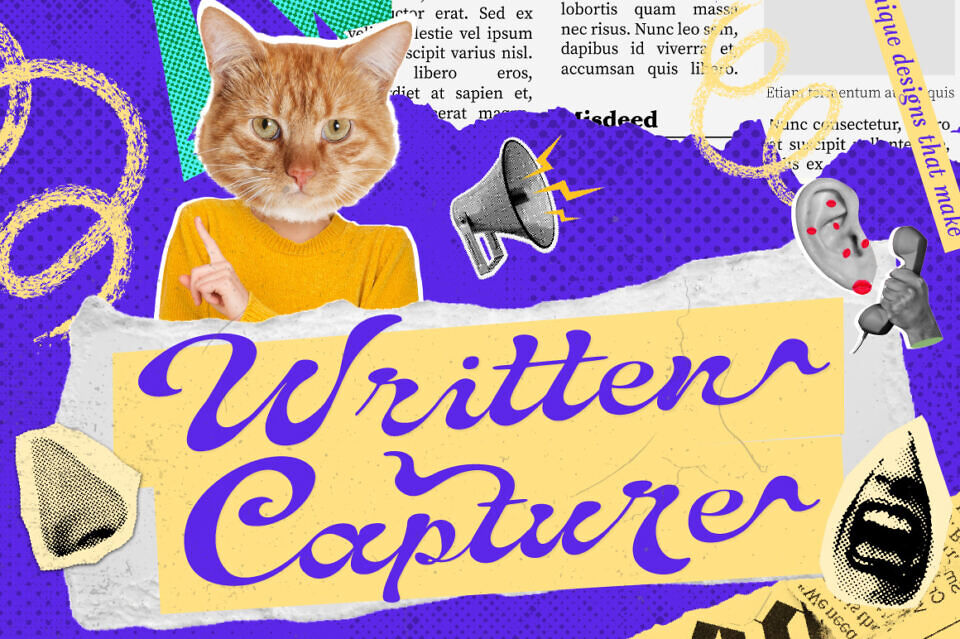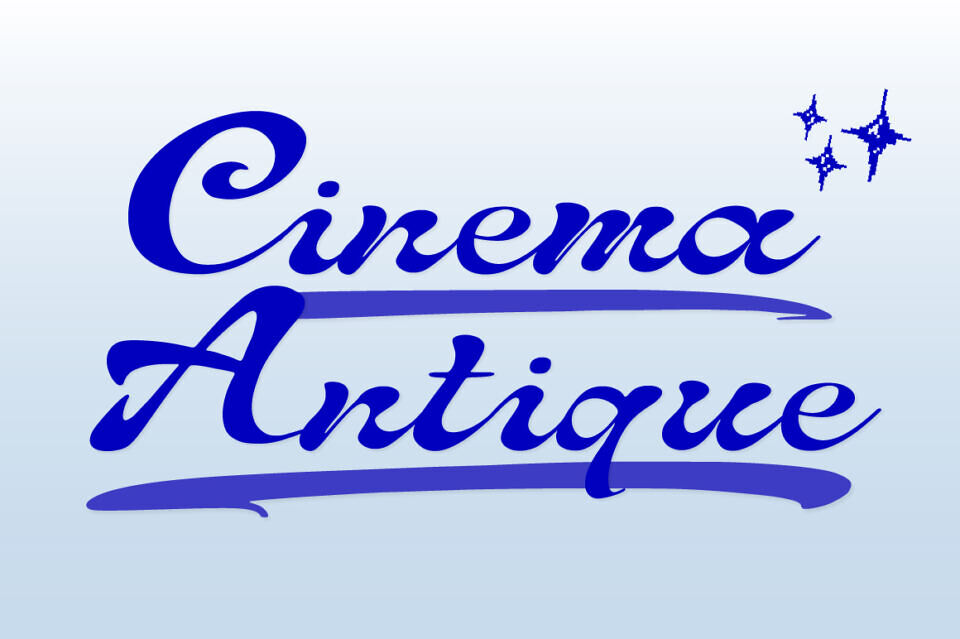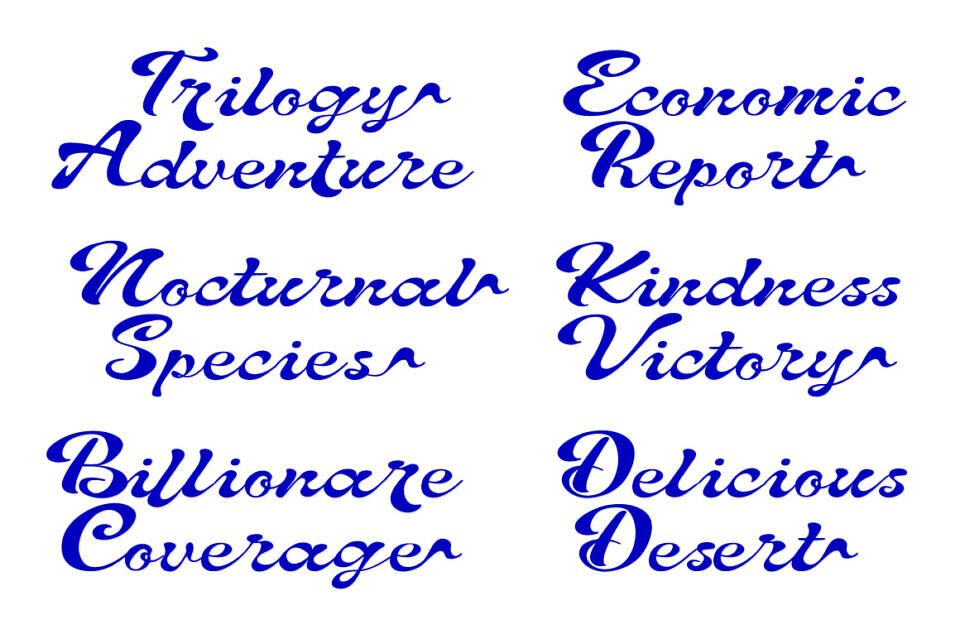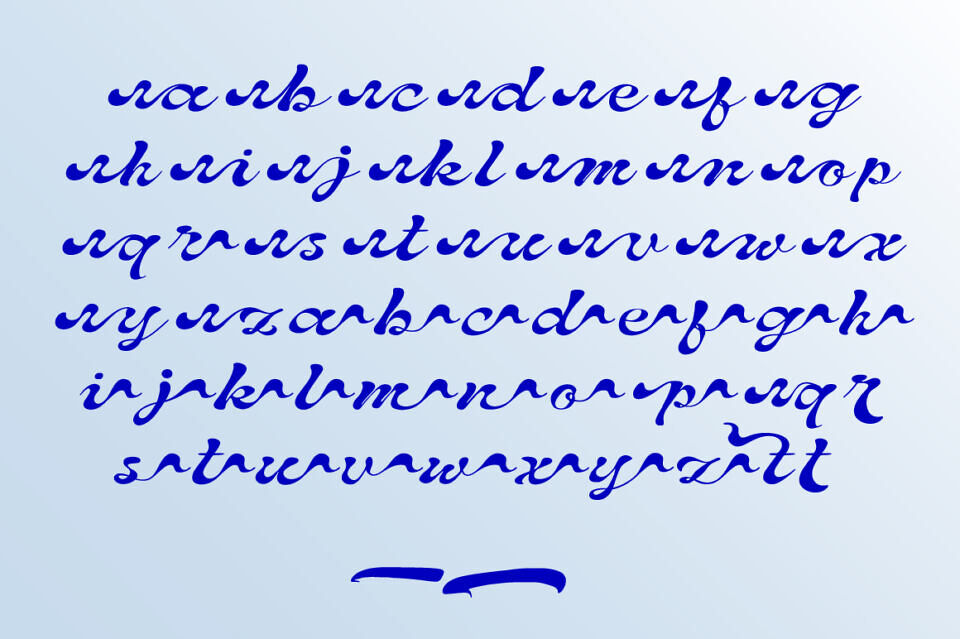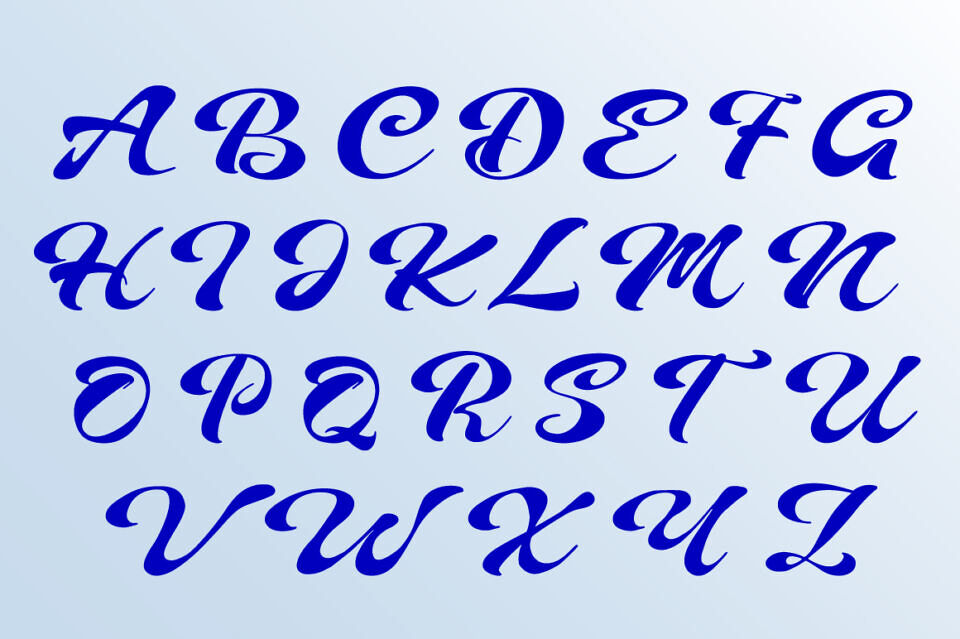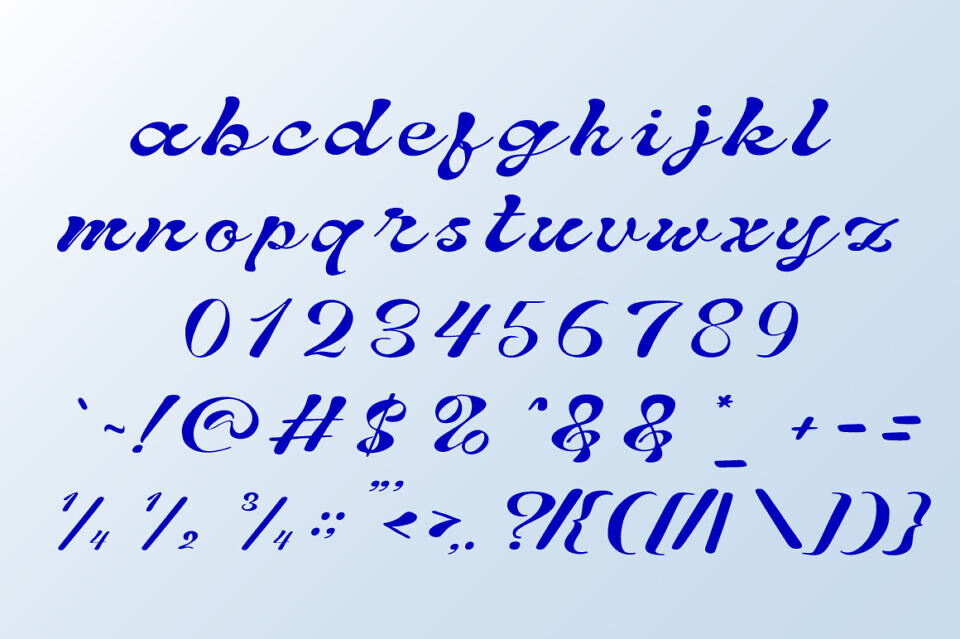
Written Capture was developed to reflect the expressive side of handwriting. Rather than aiming for perfect uniformity, the typeface embraces subtle irregularities that add warmth, movement, and personality to each word.
Written Capture is intended for creative projects that value voice and emotion. From brand identities and packaging to editorial highlights and promotional graphics, it offers a handwritten presence that feels natural and intentional.